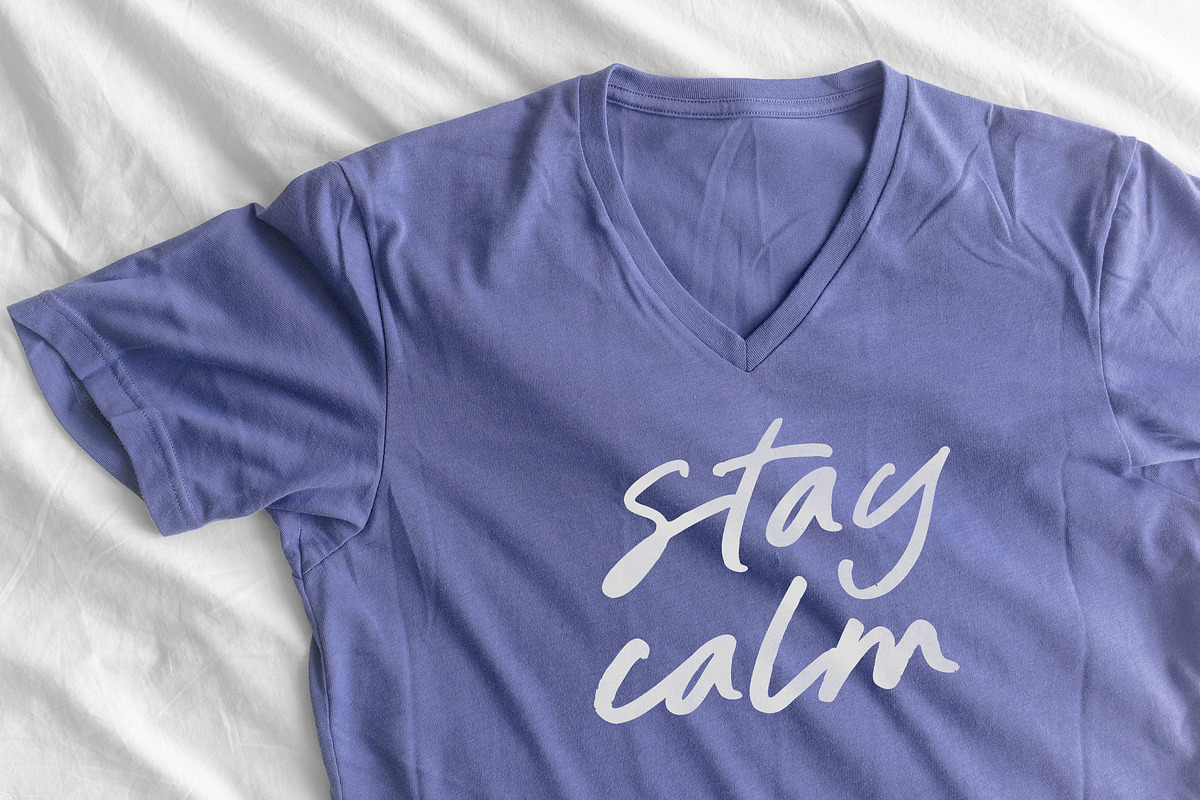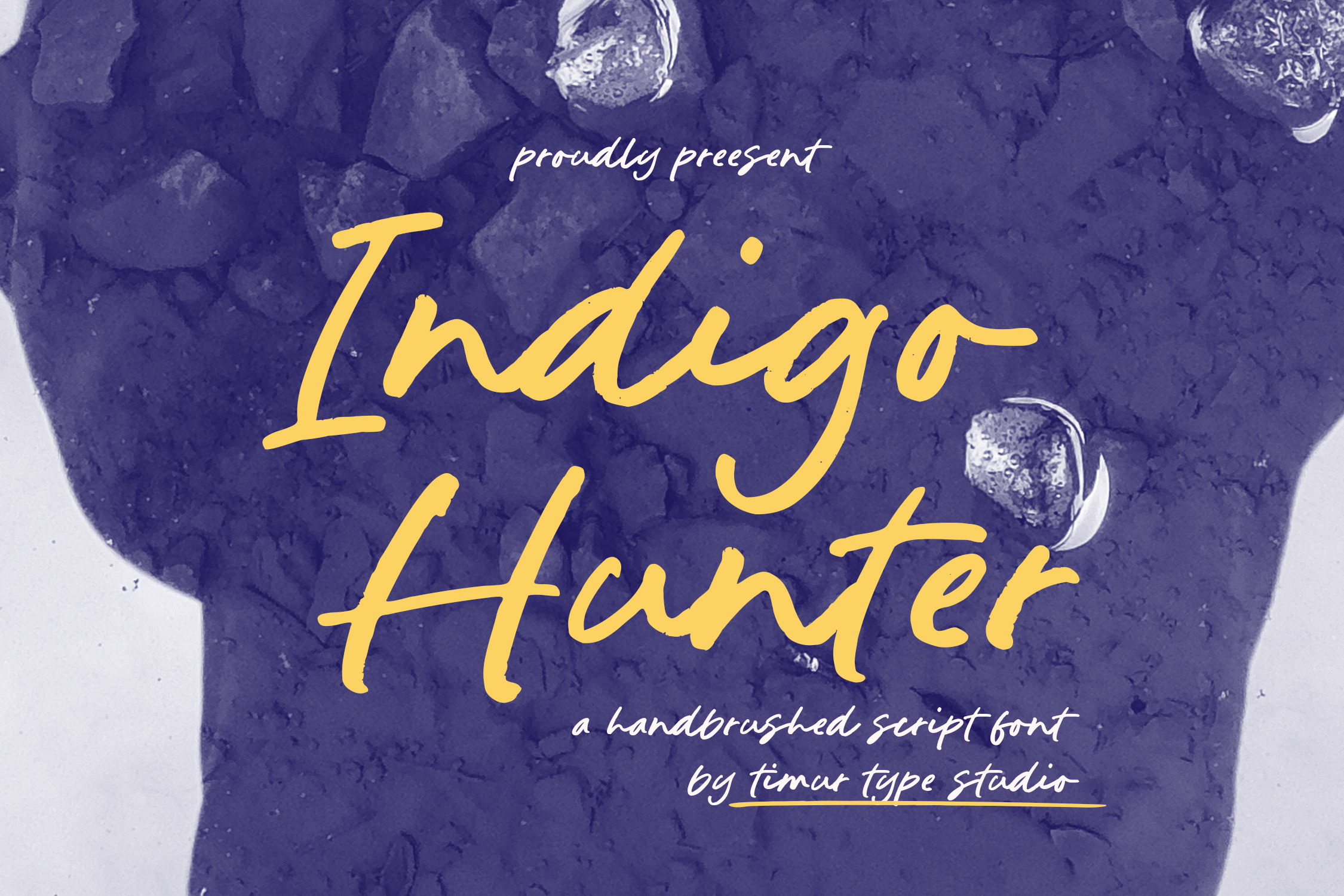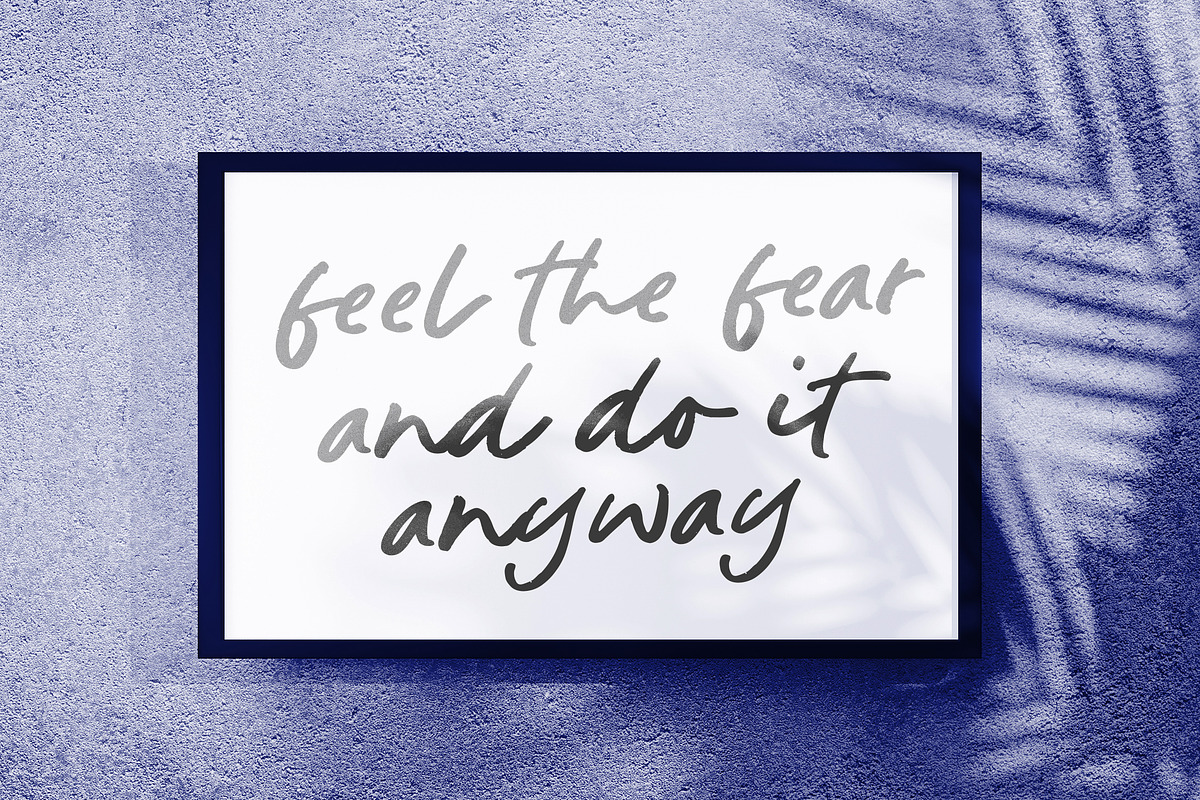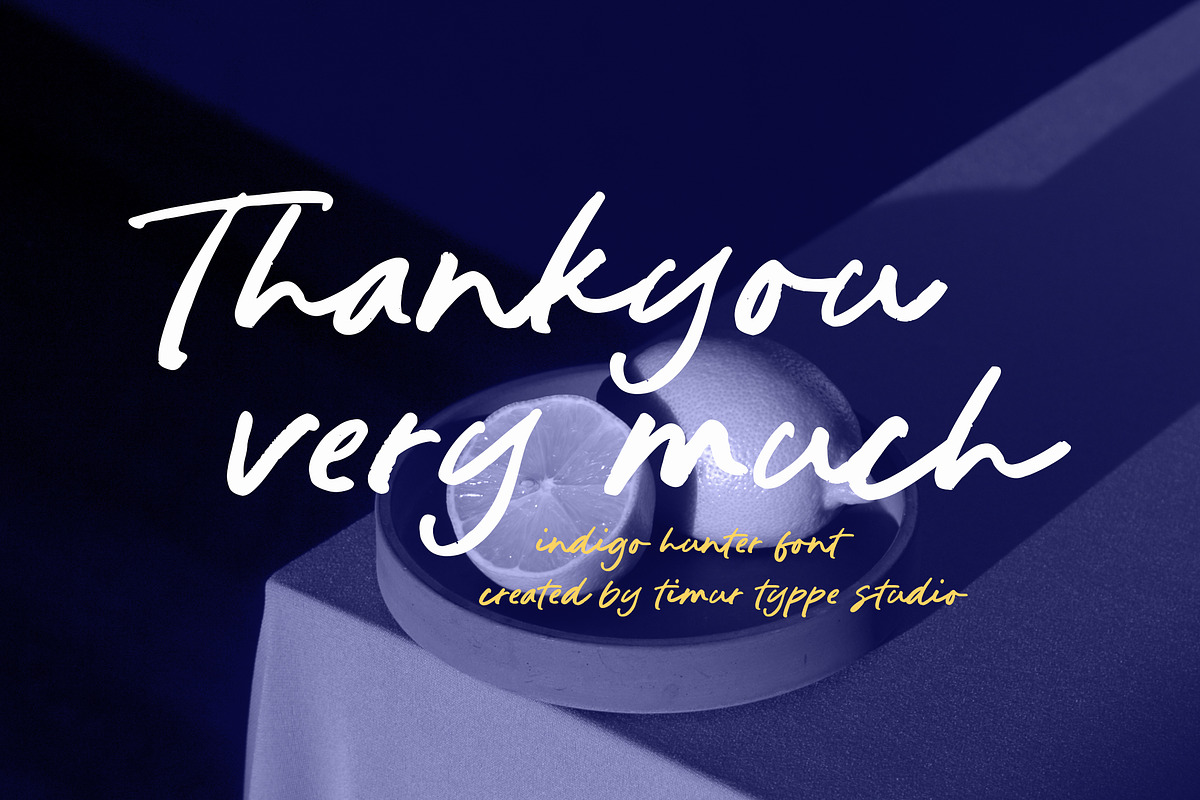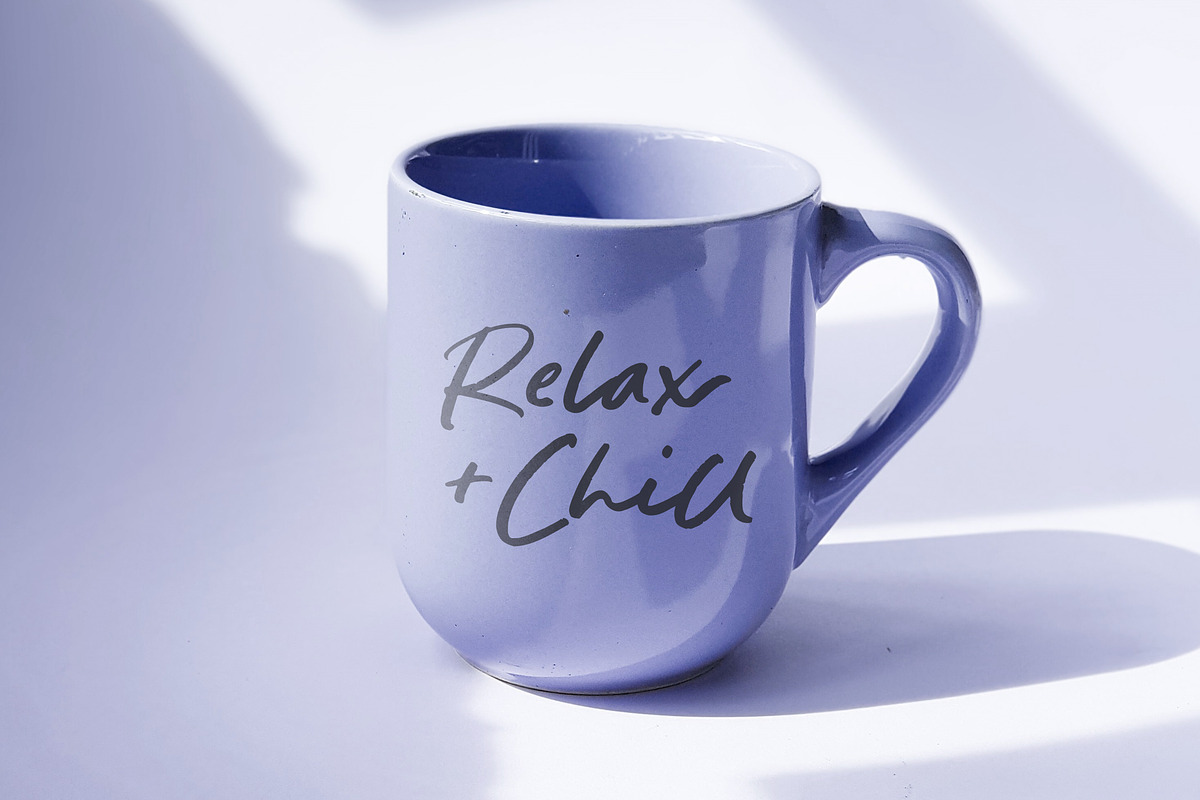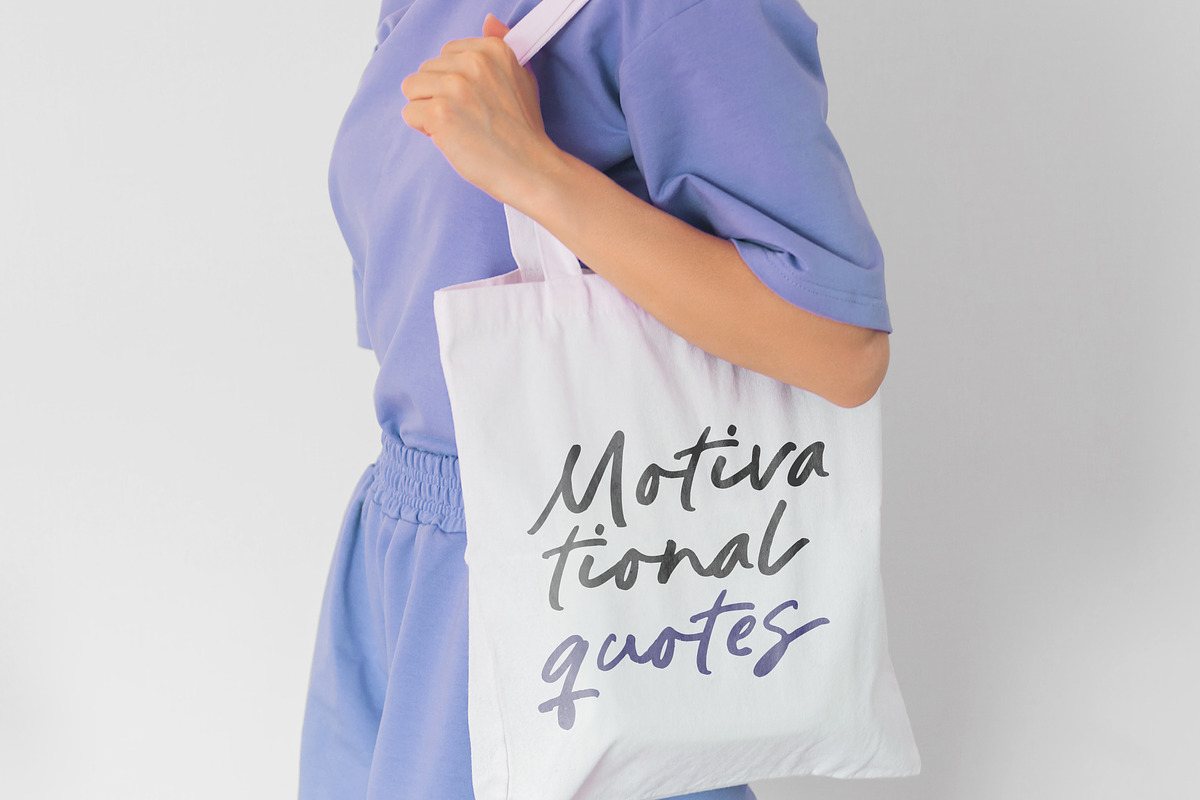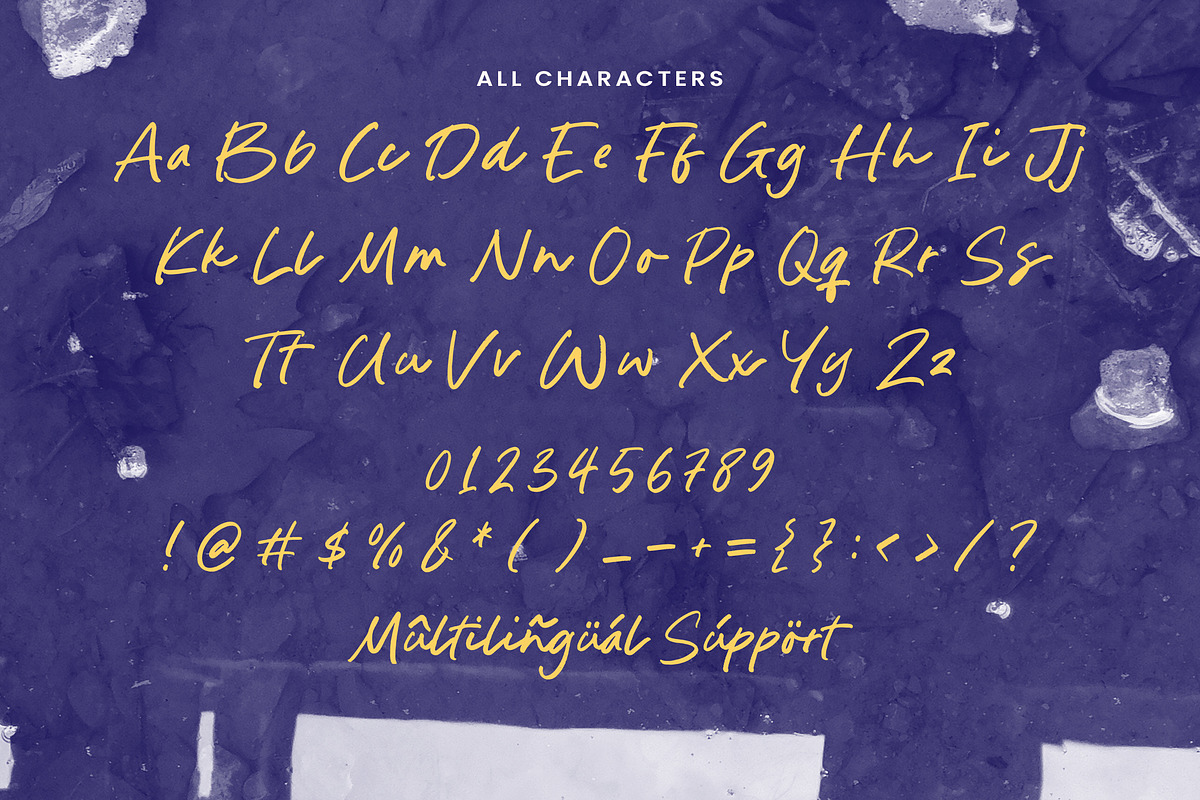
Indigo Hunter Font
Indigo Hunter is a Handbrushed Script Font
This font is a bold and expressive hand-brushed script font, designed to convey a sense of energy and creativity. With its dynamic strokes and natural texture, it’s perfect for branding, logos, invitations, and projects that call for a modern yet artistic touch.
Indigo Hunter Font also supports multilingualism